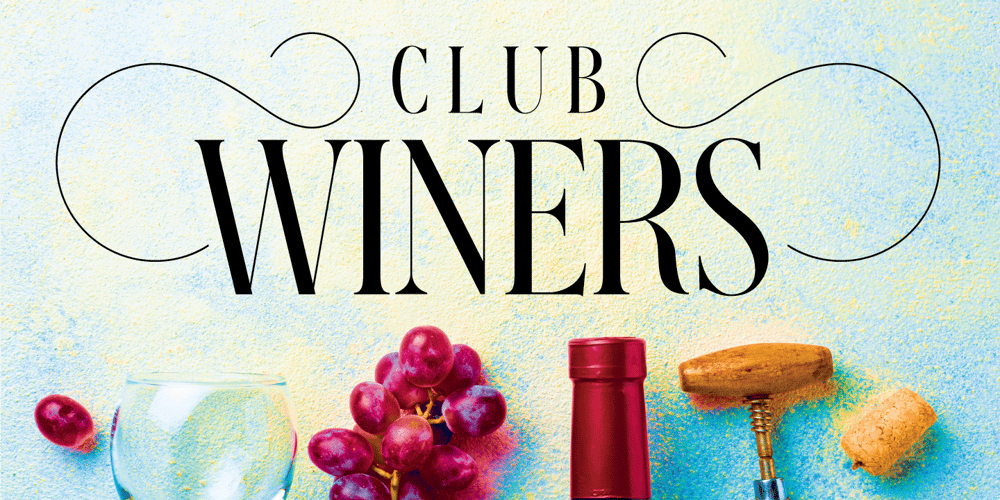
Club Winers
Club Winers font
Club Winers Font Family was designed by Andrii Shevchyk and published by Andfonts. Club Winers contains 4 styles and family package options. Elevate your designs with Club Winers, a captivating serif font that exudes sophistication, richness, and luxury. With its elegant and timeless appeal, Club Winers is the perfect choice for those seeking a touch of refined beauty in their typographic creations.Designed with meticulous attention to detail, Club Winers showcases graceful serifs, meticulously crafted letterforms, and subtle yet distinctive curves. Each character is thoughtfully balanced, resulting in a harmonious interplay between classic elegance and contemporary allure.All CAPS letters have alternates.